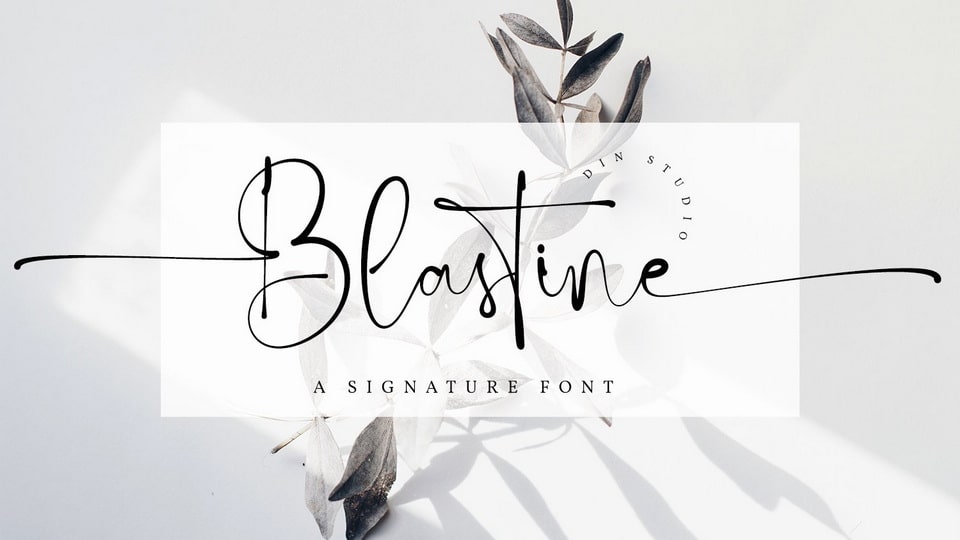
Download Blastine font, a beautiful signature typeface with a casual yet elegant touch. Blastine brings a modern and attractive look for logos, branding, wedding and quotes.
Designer: Din Studio